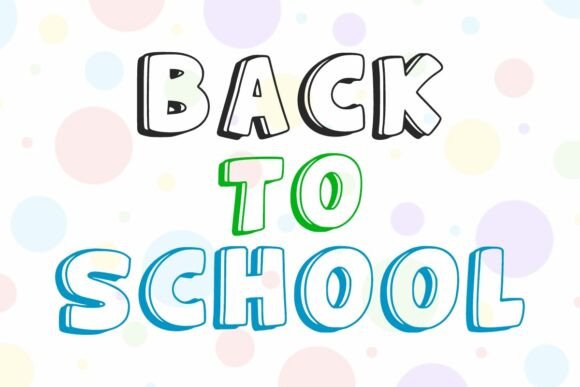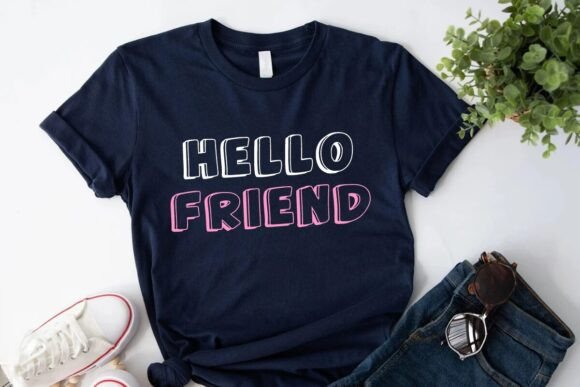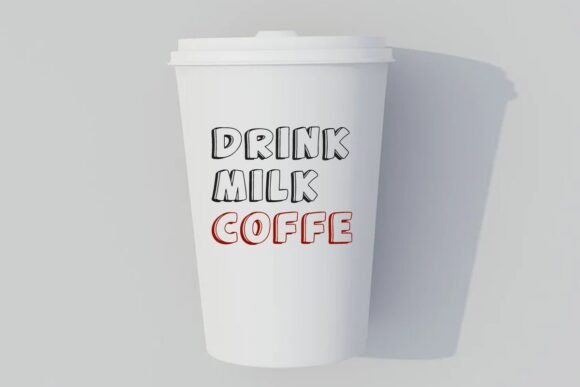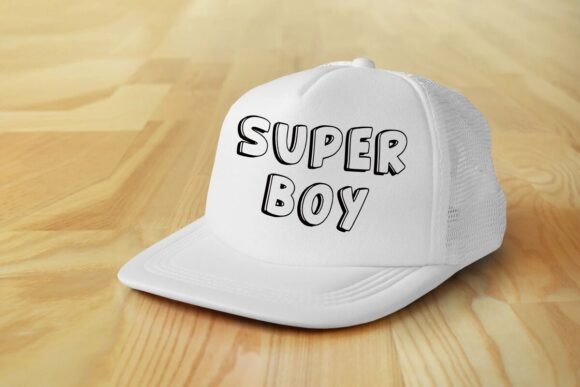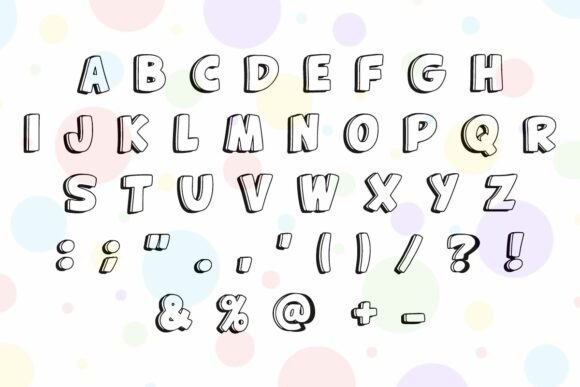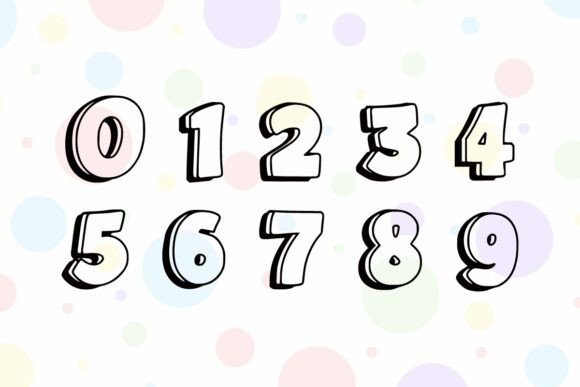
Bring a Touch of Whimsy to Your Designs with the Candy Color Font
Have you ever stared at a blank canvas, feeling stuck and uninspired? You know, that moment when you just need something to spark your creativity and get those design juices flowing? For me, it’s often a dash of color and a pinch of personality. And that’s exactly what the Candy Color Font brings to the table.
This adorable line font is designed to add a touch of whimsy and playfulness to your designs. With its unique and beautiful style, it’s perfect for logos, posters, book covers, and more. Whether you’re a seasoned designer or just starting out, the Candy Color Font is a valuable addition to your toolkit. Its versatility and charm make it a must-have for anyone looking to add a little extra magic to their work.
Candy Color Font Key Features
- Unique Characteristics: Candy Color Font is a sans-serif typeface designed to resemble a colorful, playful aesthetic. It features a distinctive rounded shape and vibrant color palette, making it ideal for use in children’s media, food branding, and other applications where a fun, youthful vibe is desired.
- Font Size and Resolution: Designed to be scalable, Candy Color Font can be used at various sizes, from small captions to large headlines, without compromising readability or visual impact. It’s optimized for use at resolutions of 72 dpi and above.
- Color Palette: The font features a bold, vibrant color scheme with 8 different color options, including bright pink, electric blue, sunshine yellow, and more. This allows designers to mix and match colors to create a unique visual identity.
- Language Support: Candy Color Font supports a wide range of languages, including Latin, Cyrillic, and Greek scripts, making it suitable for use in multilingual applications.
- Font Styles: Available in 4 different font styles: Regular, Italic, Bold, and Bold Italic, providing designers with flexibility and options for creating visually appealing typography.
Candy Color Font Review
Candy Color Font is a playful and vibrant font that’s sure to add some fun to your designs. ✨ The font’s colorful and whimsical feel makes it perfect for kid-friendly projects, like children’s books, party invitations, or even video games. It’s also great for adding a touch of personality to social media graphics or website headers.
- Candy Color Font is highly customizable, with a wide range of color options and styles to choose from.
- The font is very easy to read, even at small font sizes.
- Candy Color Font is a great choice for designers who want to add some visual interest to their projects without overpowering the content.
However, there are a few limitations to consider. ⚠️ For one, the font may not be suitable for formal or professional projects, as it can come across as too playful or childish. Additionally, the font may not be as versatile as other fonts, and may not work well in certain design contexts.
Overall, I think Candy Color Font is a great choice for designers who want to add some fun and personality to their projects. While it may not be the best choice for every project, it’s a great option for designers who want to add some visual interest and whimsy to their designs.
Candy Color Font is perfect for:
- Adding a playful touch to children’s party invitations or social media graphics.
- Creating eye-catching headings and titles for blog posts or articles.
- Designing colorful and engaging menus or brochures.
Remember to experiment with different color palettes and settings to get the most out of Candy Color Font!